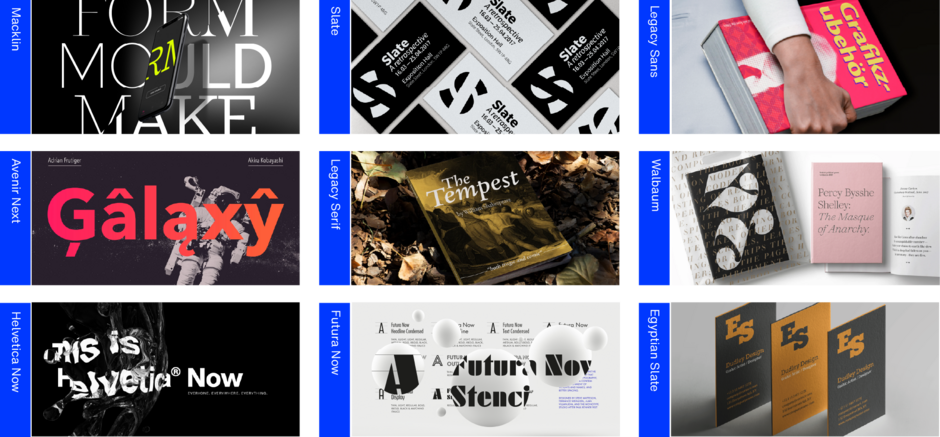
Manual: Big Type Families for Building Brand
When typefaces were first invented, there was no concept of a “family” of typefaces – only Roman fonts existed. It wasn’t until much later that the idea of a typeface family, with multiple weights and proportions, was developed.
Today, graphic and brand designers have access to expansive font families such as Helvetica® Now, which offers a wide range of weights and proportions across Display, Text, and Micro versions. Other notable large sans serif families include Avenir® Next and Futura® Now. Families like Macklin®, Walbaum™, and Cotford®, are large and versatile serif families. While Slate™, Egyptian Slate™, and the ITC Legacy Serif and ITC Legacy Sans collections provide both serif and sans serif options in multiple weights.
Leveraging large typeface families is a wise strategy when building a brand. Relying solely on Roman, italic, and bold versions is rarely sufficient for a comprehensive branding system. While it may not be immediately necessary, eventually you’ll encounter situations where condensed, ultra-bold, expanded, or stylistically distinct versions are required.
Key Considerations for Typeface Development:
- Avoid System Fonts:
System fonts – the ones bundled with operating systems and common applications – are powerful communication tools. They ensure documents created on one device replicate the same on other devices. The problem with using system fonts for branding, however, is that they usually have small families and are ubiquitous. Ubiquity does not create distinction. Using system fonts results in a brand that feels as generic and forgettable as a deli menu or Aunt Rosie’s family newsletter.
- Complement, Don’t Replicate the Logo:
Avoid trying to mirror a logo’s style with a font, as logos are usually hand-drawn and unique. Instead, choose a typeface that contrasts with the logo, creating a graphic counterpoint that enhances the overall brand identity.
- Choose Typefaces with Longevity:
With over 300,000 fonts available, many are fleeting trends. Think: tie-dyed T-shirts. Brands are built to last, so select a typeface family that will remain timeless and relevant for years to come.
- Bottom Line:
Plan carefully when selecting fonts to build your brand – thoughtful font choices are foundational to creating a strong, enduring identity.